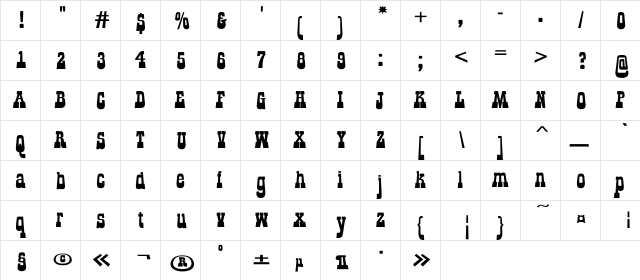
a_GildiaLnBk Regular
Design Context for a_GildiaLnBk Typeface
a_GildiaLnBk takes a measured approach to typography — its balanced proportions and neutral character make it a reliable workhorse for both digital and print work.